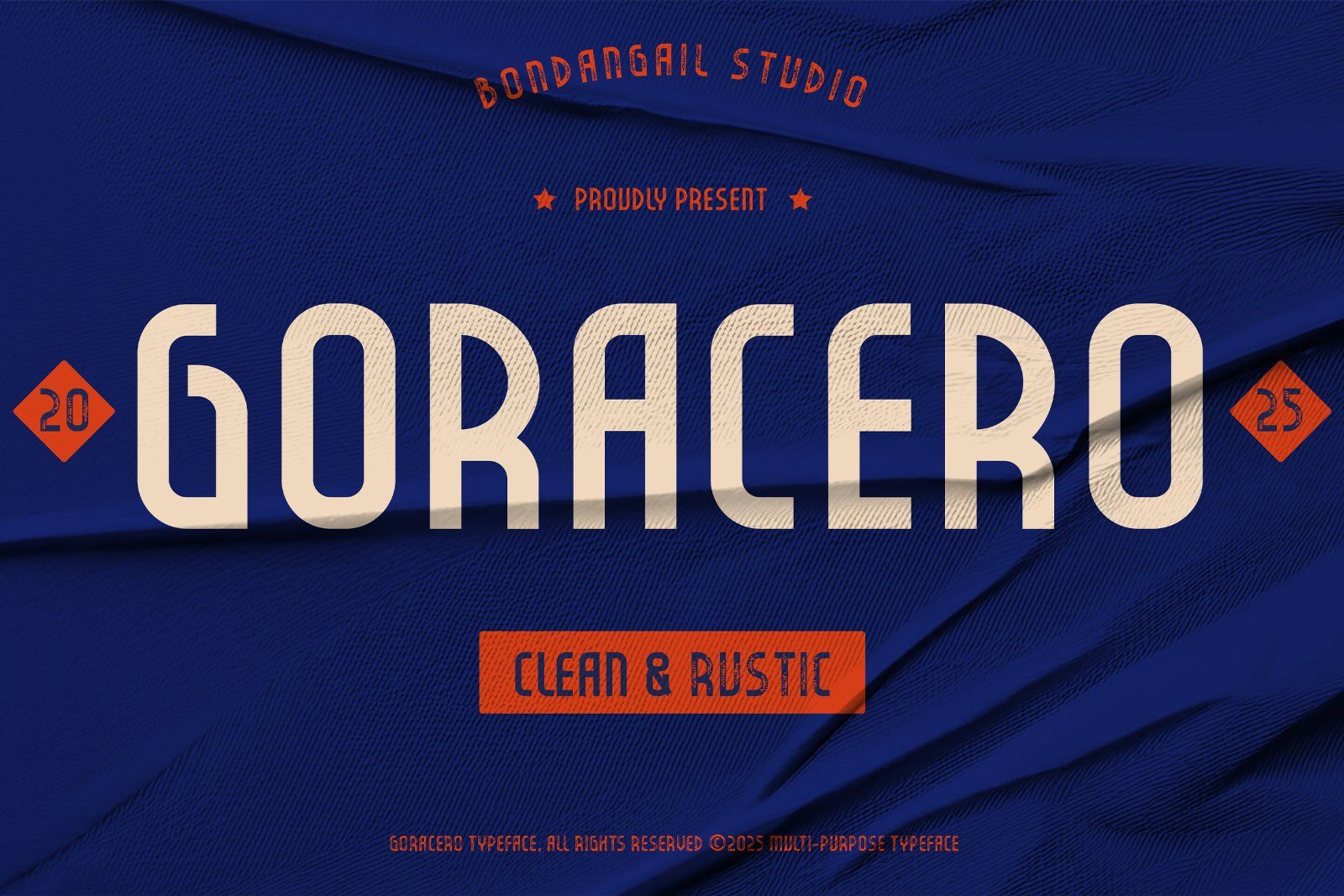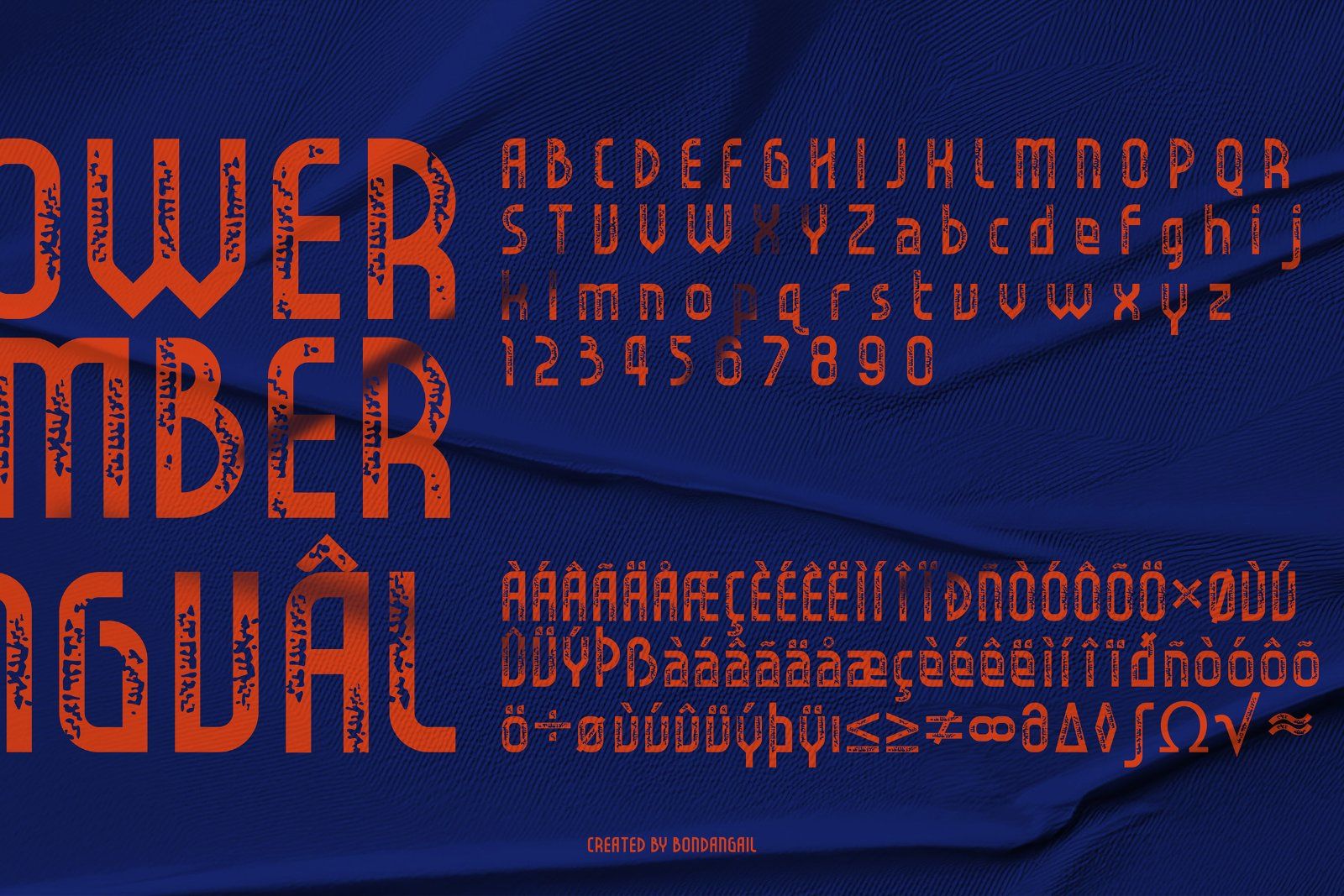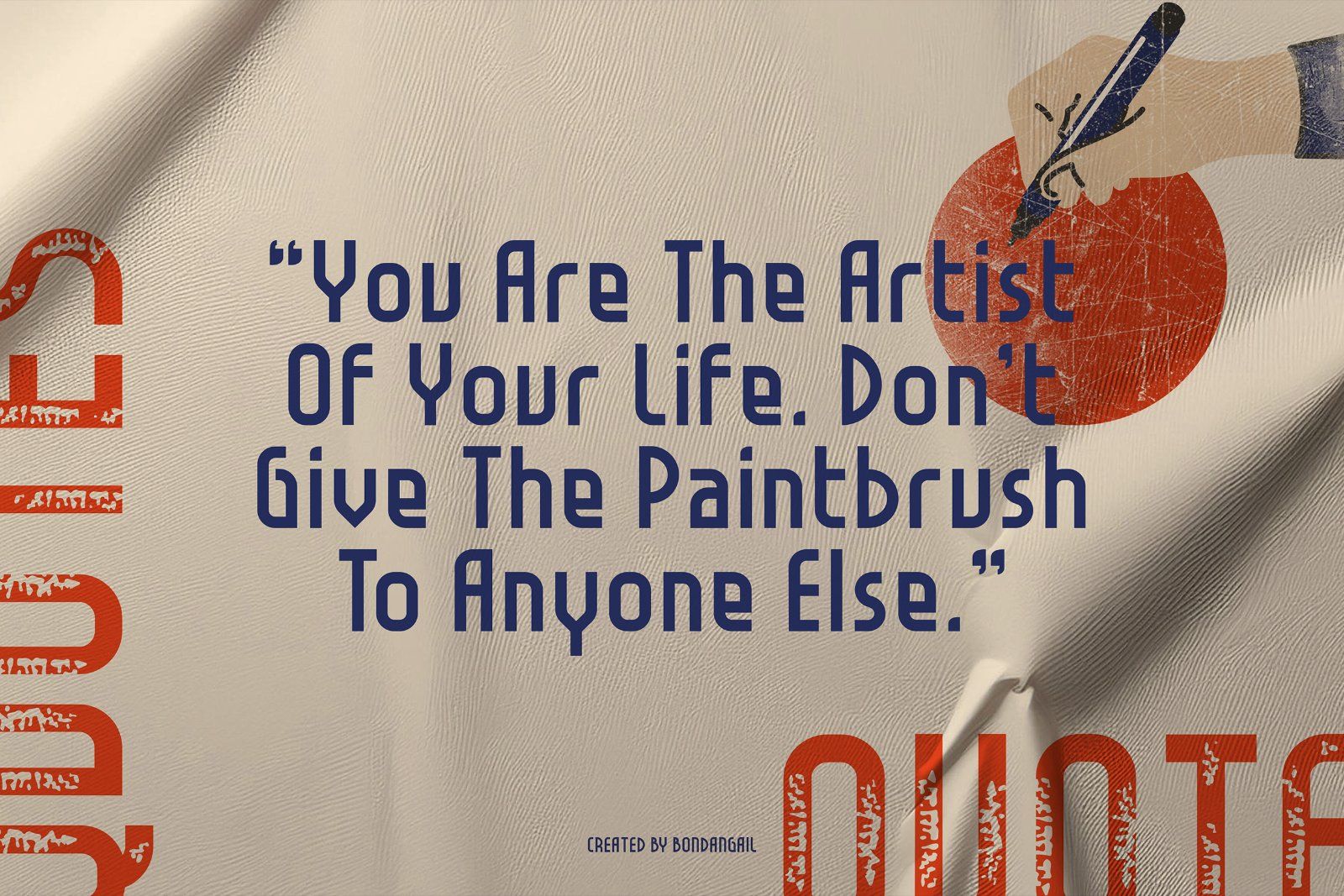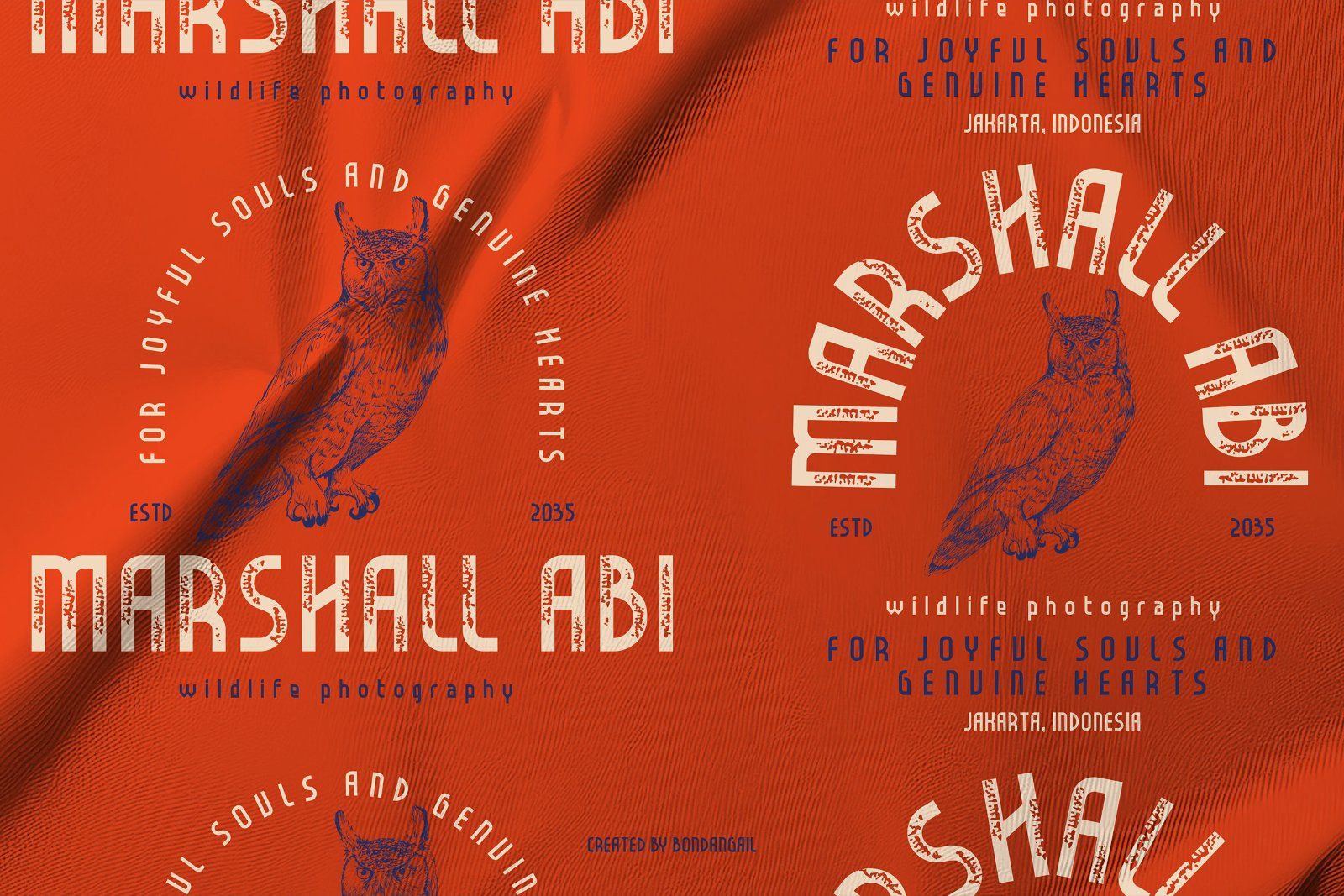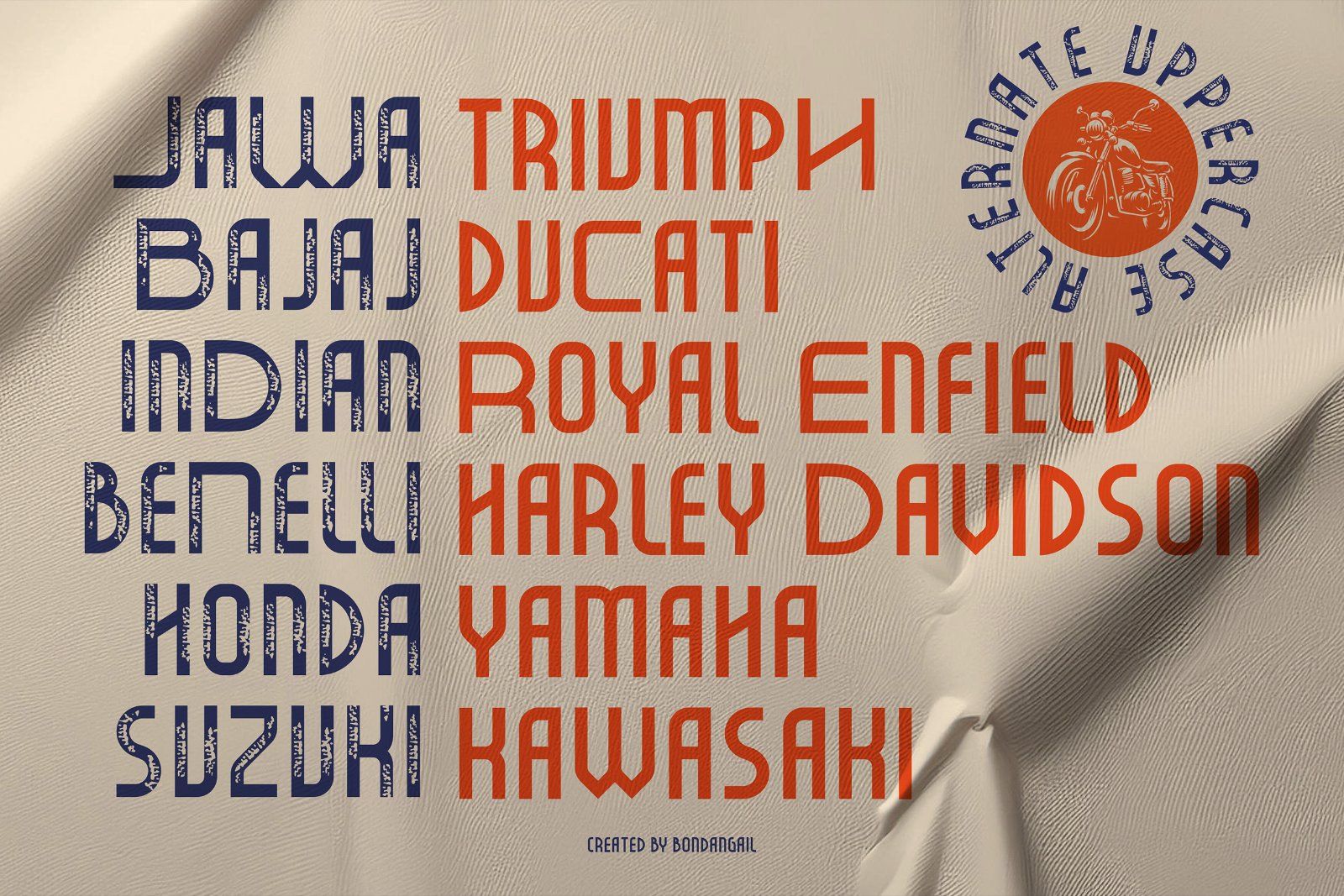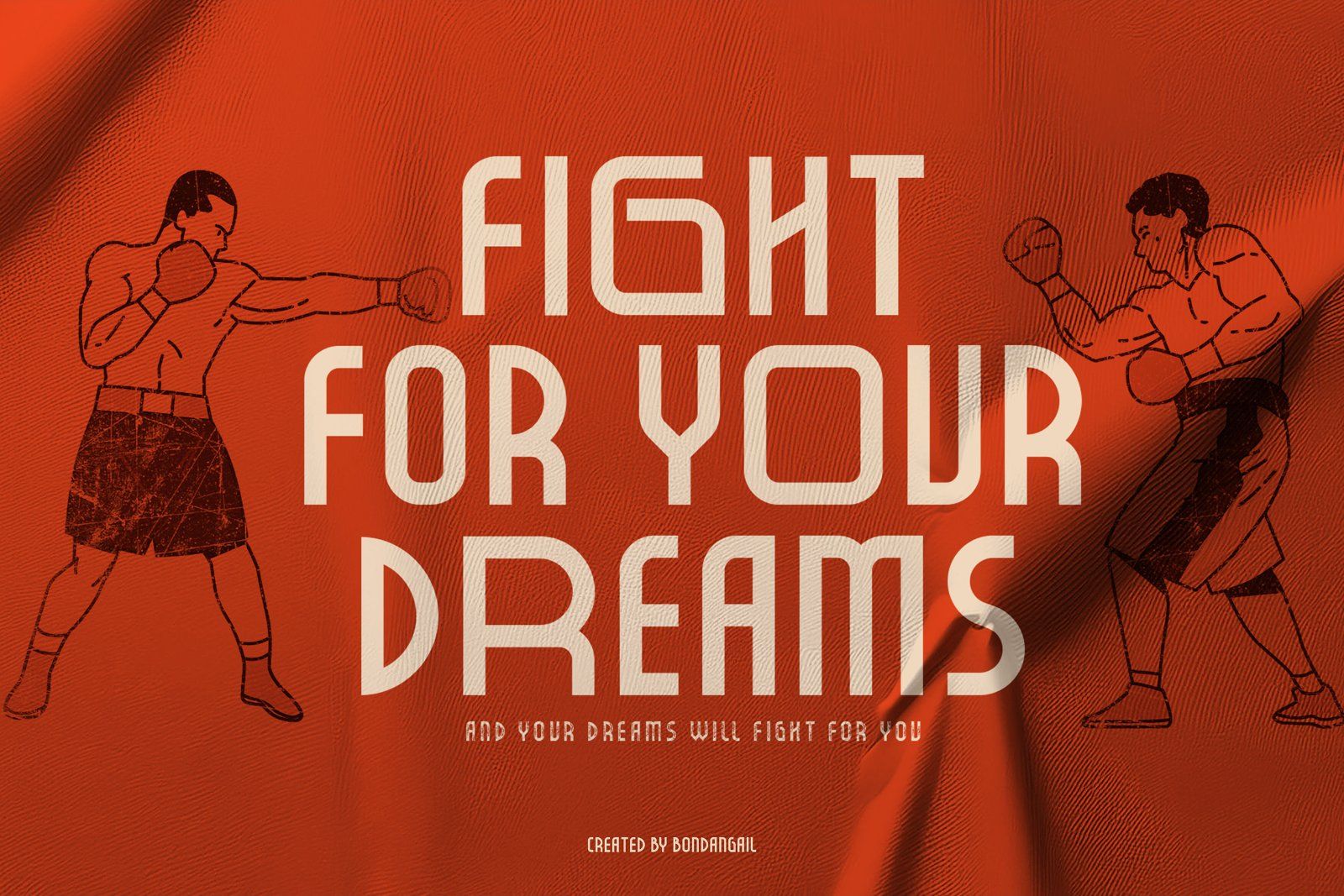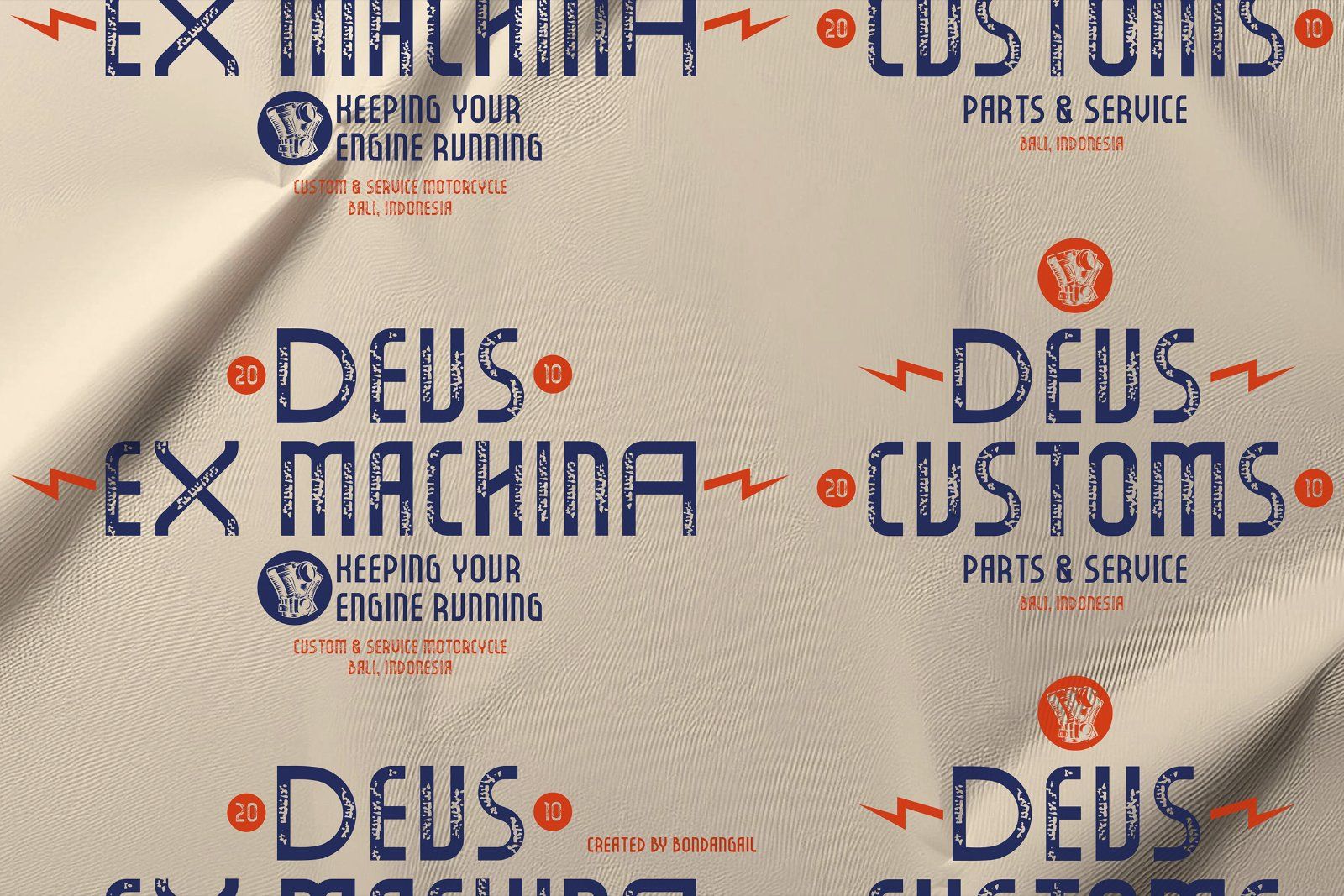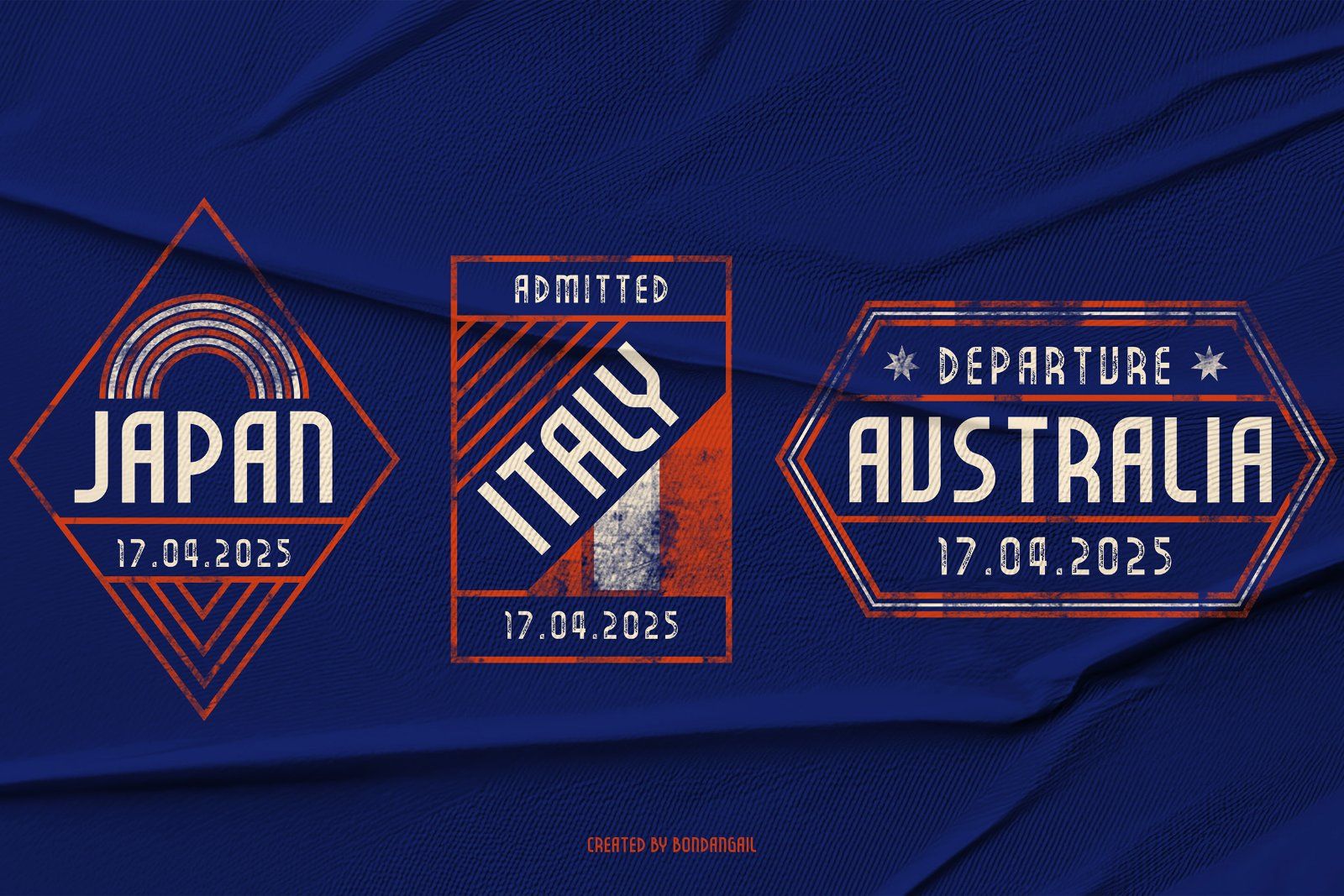
INTRODUCING
GORACERO - MODERN BADGE FONT
Goracero is a contemporary sans serif display font inspired by vintage aesthetics, embodying the spirit of rustic charm. Available in two unique styles, Clean and Rustic. Goracero features alternate capitalization options in various widths, providing endless creative possibilities for your projects, especially those focused on men’s outdoor products.
Goracero Includes:
• 2 style Typefaces Clean & Rustic
• Alternate Uppercase
• Uppercase, Lowercase, Numerals, Symbols, and Punctuation